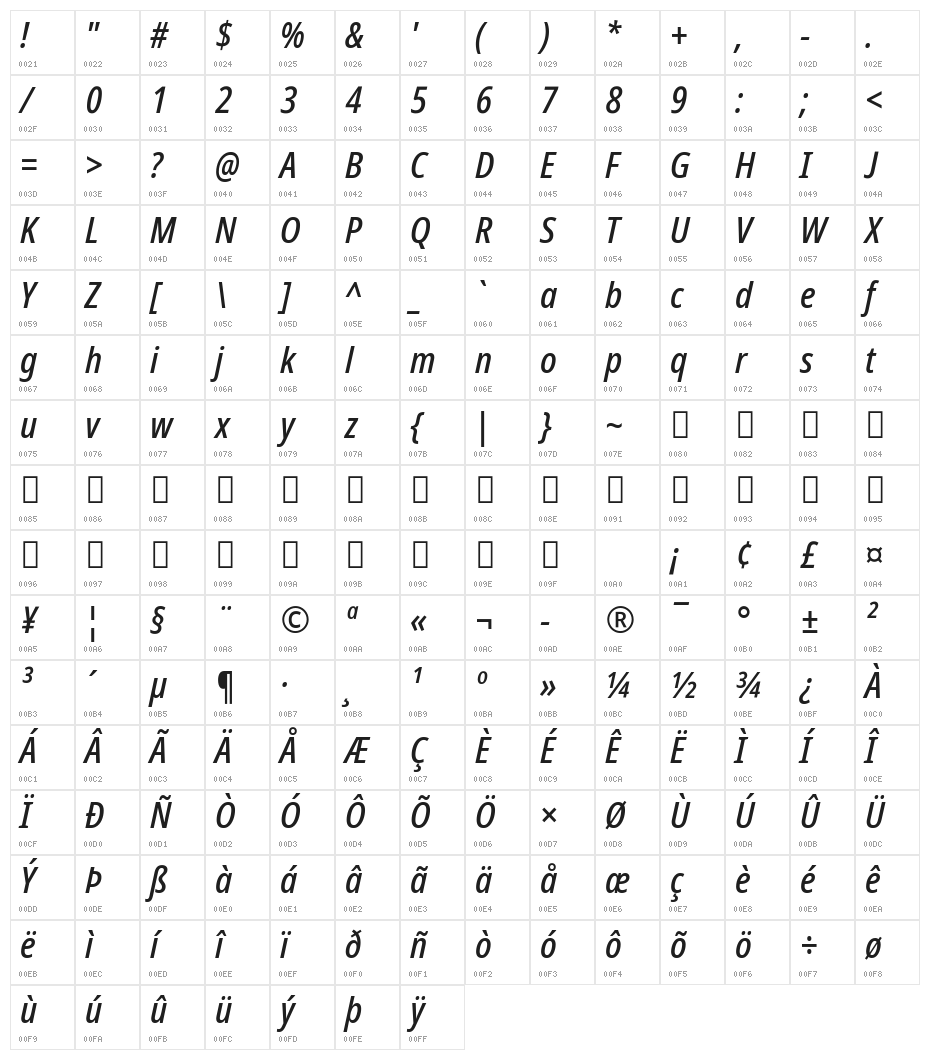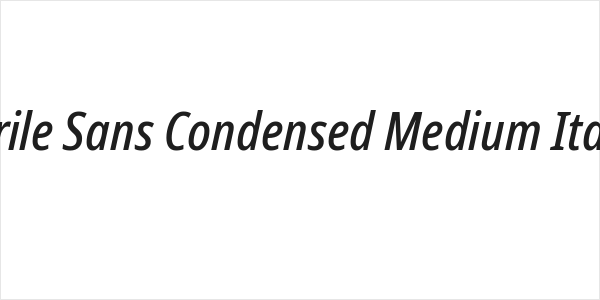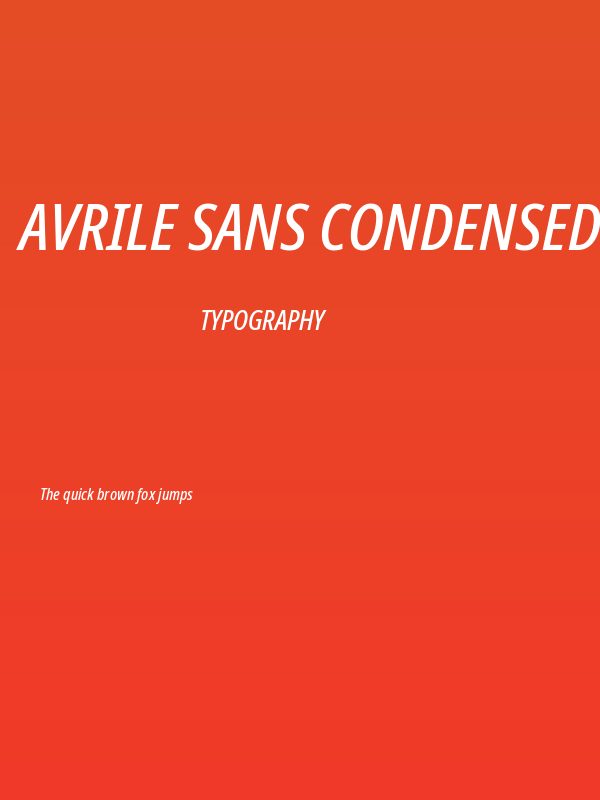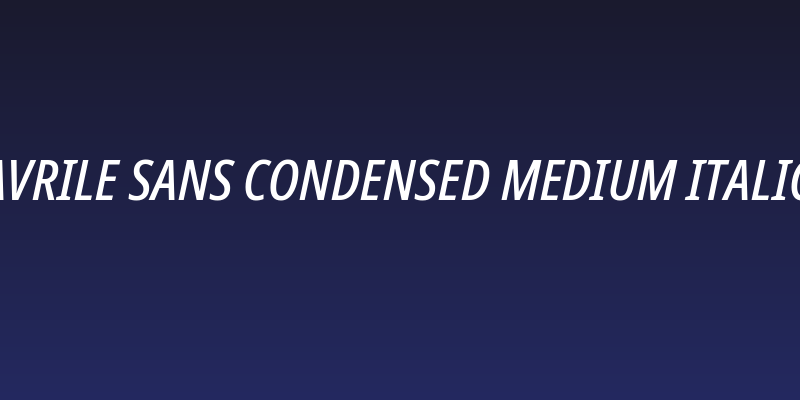
Avrile Sans Condensed Medium Italic Font
Avrile Sans Condensed Medium Italic Description
This font presents a sleek and modern aesthetic with its sans-serif design. The characters are slightly condensed, giving it a compact and efficient appearance. The italic style adds a dynamic and forward-leaning quality, making it suitable for contemporary and progressive designs. The medium weight provides a balanced presence, neither too light nor too bold, ensuring readability and clarity. The character spacing is normal, allowing for easy reading without feeling cramped. The overall style is modern, making it versatile for various applications.
| Proposed Projects | Ideal for branding, advertising, and editorial design where a modern and dynamic look is desired. |